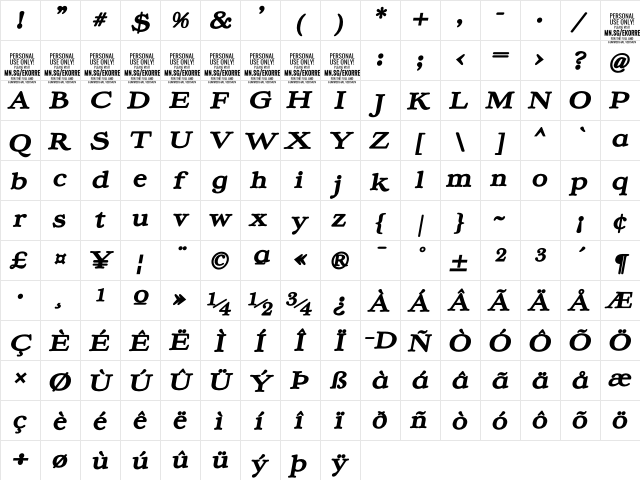
Complete Ekorre PERSONAL USE ONLY Black Italic glyph index. Displaying only characters natively supported by Ekorre PERSONAL USE ONLY Black Italic font.
Ekorre PERSONAL USE ONLY Black is a composed and adaptable typeface that performs quietly and consistently across a wide range of design contexts. The slanted form adds forward momentum and visual energy.
Pro Tip: Use Ekorre PERSONAL USE ONLY Black for emphasis, pull quotes, and subheadings where its slanted energy can add rhythm to the layout.